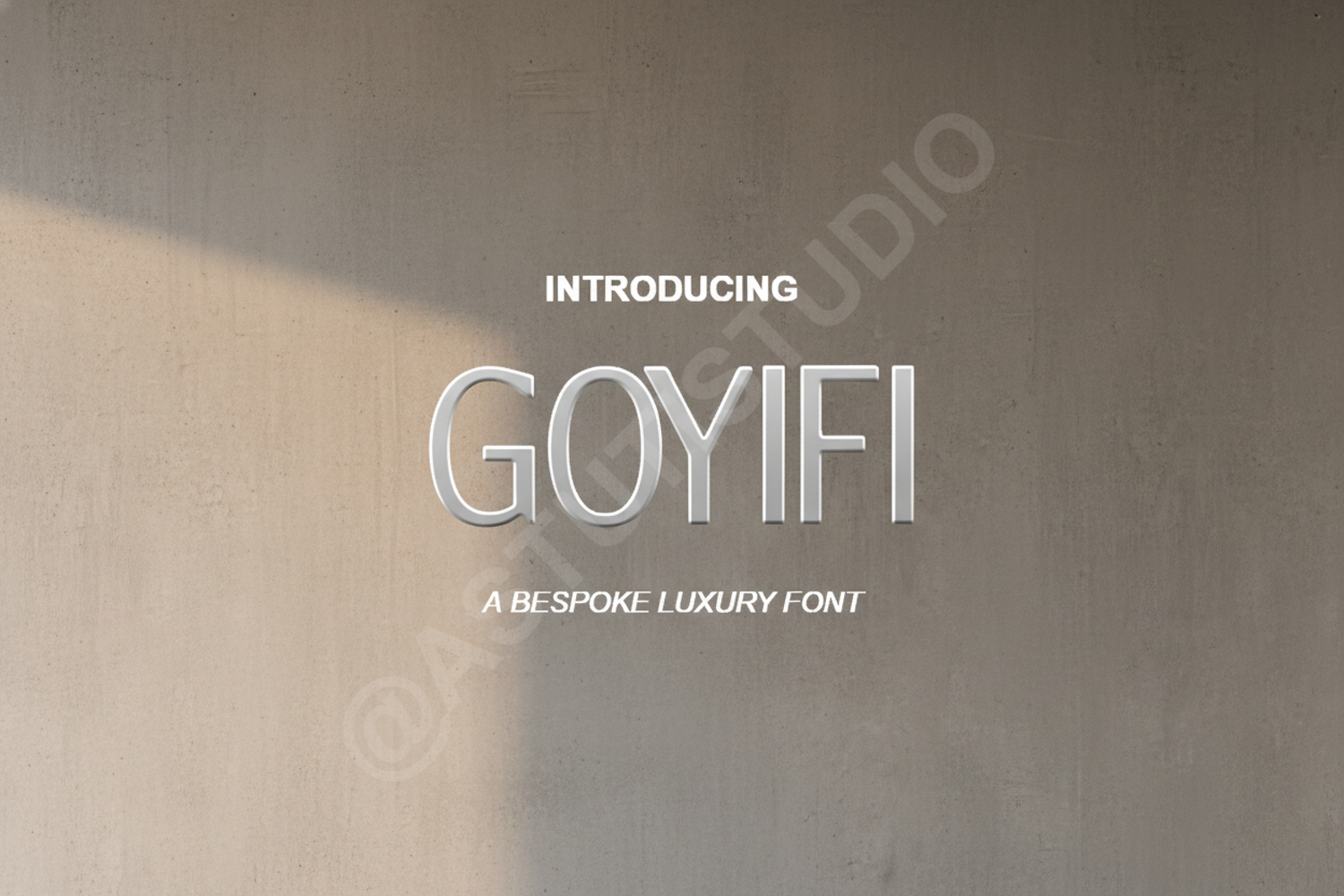
Goyifi - Elegant Modern Serif Typeface
Goyifi
Goyifi is a sophisticated and versatile serif typeface designed for high-end projects. With its clean lines and unique character shapes, it strikes the perfect balance between classic elegance and modern minimalism. Whether you are crafting a luxury brand identity or a minimalist editorial layout, Goyifi provides a polished touch that elevates your creative work.